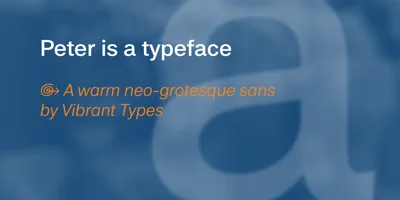
Peter Font
The Peter Font is ideal for friendly contemporary design projects including personal branding materials, small business identities, community newsletters, family-oriented marketing, neighborhood service advertisements, local restaurant menus, artisanal craft packaging, and approachable professional communications. This personable typeface brings warm authenticity and human connection to any design project requiring trustworthy, relatable typography with genuine personal character.
What makes Peter Font so exciting is its perfect embodiment of personal warmth with approachable letterforms that capture the essence of genuine human connection and trustworthy communication. The letters feature friendly, accessible proportions with personal character details that create an immediate sense of authenticity and human relatability. This distinctive personal character makes it perfect for brands and projects that want to communicate trustworthiness, personal service, and the appealing warmth of genuine human interaction and community connection.
The Peter Font family typically includes regular and bold weights, often with friendly variations and personal design elements. Many versions feature community symbols, personal service glyphs, and approachable design elements that enhance its authenticity for local business and personal branding applications.
Whether you're designing for local businesses, personal brands, or community organizations, Peter Font offers the perfect solution for projects that need to convey personal warmth and trustworthy authenticity. This font transforms standard communications into friendly designs that immediately communicate personal reliability, human connection, and the genuine appeal of trustworthy personal service to audiences seeking authentic, approachable business relationships and community engagement.